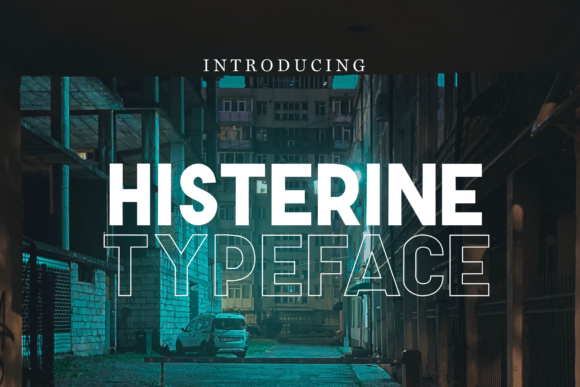
Unleash the Power of Bold Expression with Histerine Font: A Display Font That Commands Attention
In a world clamoring for attention, Histerine Font emerges as a bold and striking display font, cutting through the noise to deliver messages with an undeniable impact. This remarkable creation by alanstudio99 is not just a font; it's a statement of individuality, a declaration of confidence, and a celebration of creativity.
Experience the Thrill of Boldness:
Histerine Font is a display font that exudes boldness and commands attention. Its thick, unwavering lines create a visual symphony that captivates audiences, leaving an indelible mark on their minds. Whether you're crafting posters, flyers, or eye-catching prints, Histerine Font is the perfect choice to make your words resonate with power and conviction.
Endless Creative Possibilities:
With Histerine Font, the possibilities are as boundless as your imagination. Unleash your creativity and explore a realm of endless artistic expressions. From captivating headlines that demand attention to striking logos that linger in memory, Histerine Font empowers you to craft visual masterpieces that speak volumes.
Make a Statement, Leave a Legacy:
Histerine Font is more than just a font; it's a tool for self-expression, a medium through which you can imprint your unique style on the world. Whether you're a seasoned designer or just starting your creative journey, Histerine Font provides the perfect canvas to showcase your talent and leave a lasting legacy of bold and impactful designs.